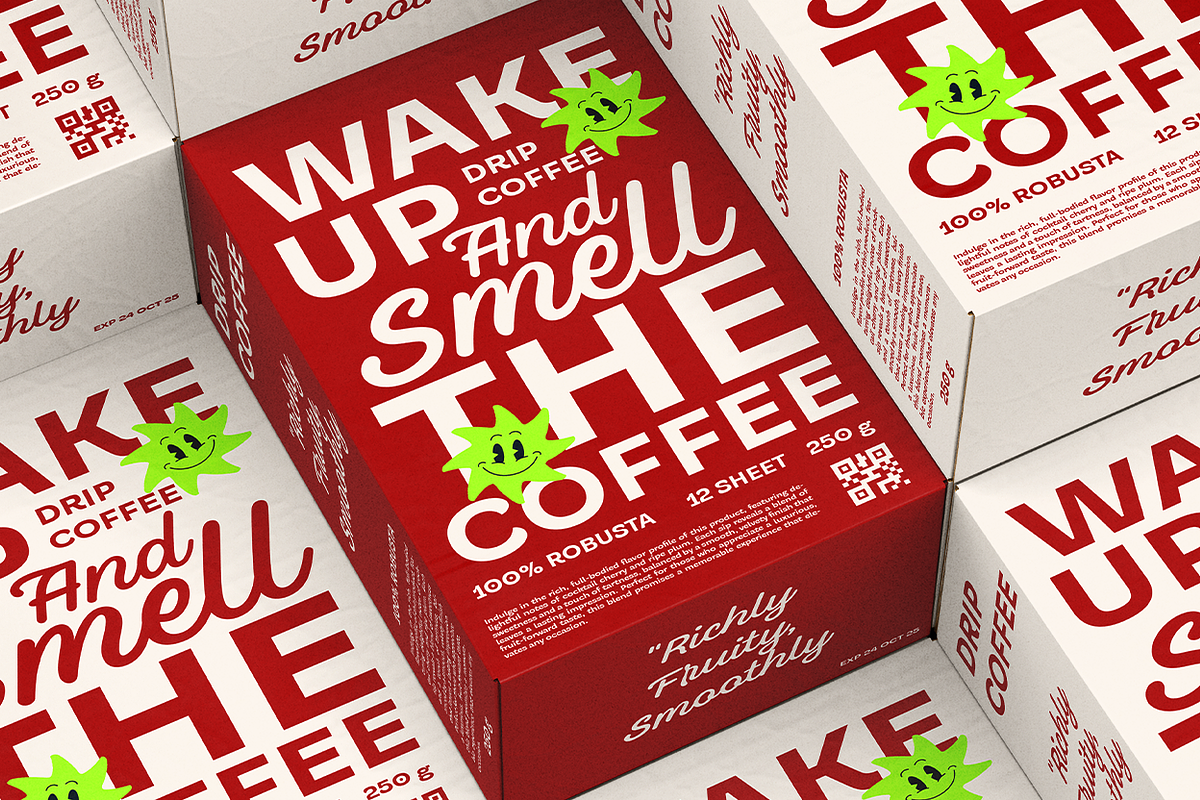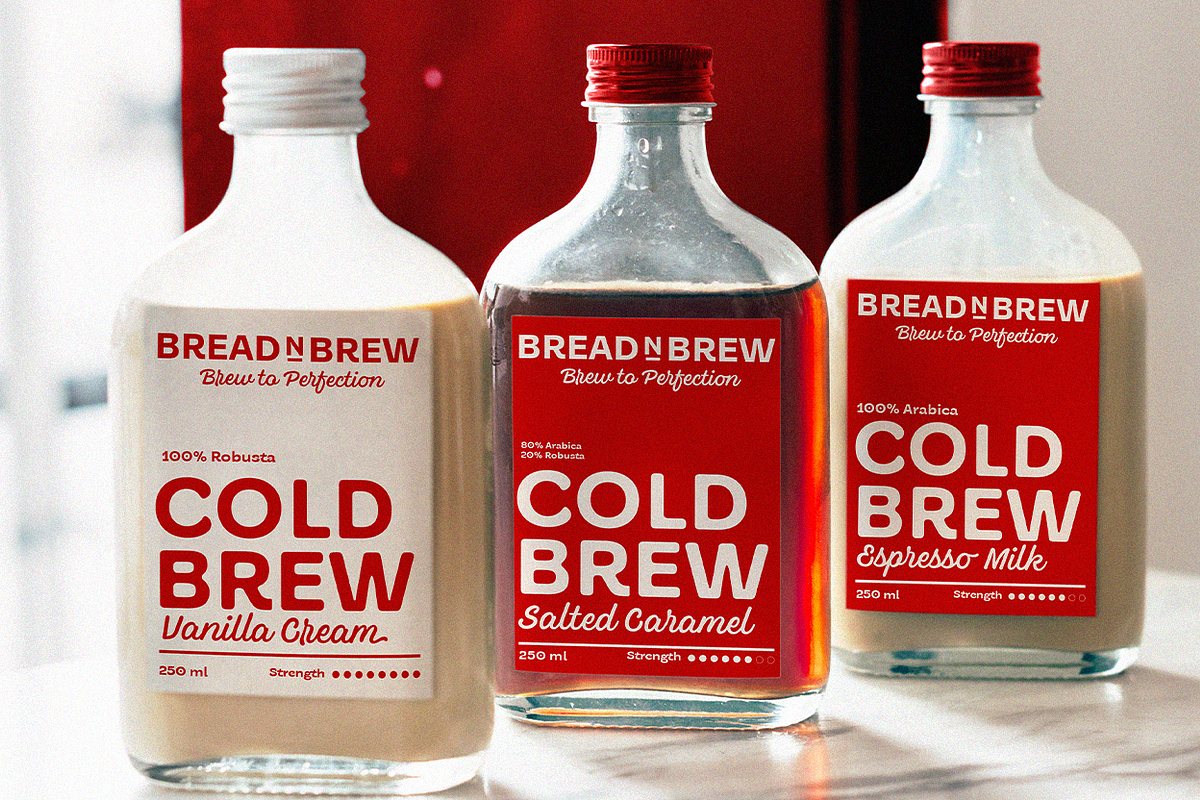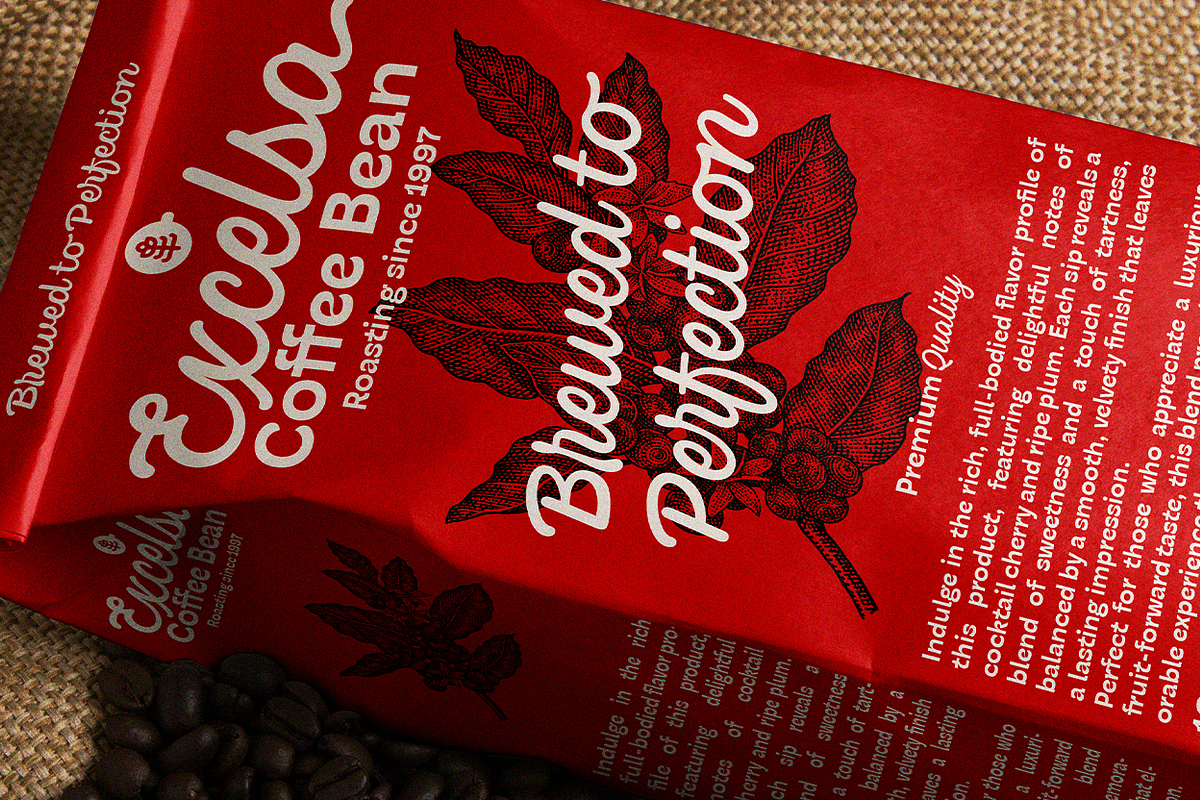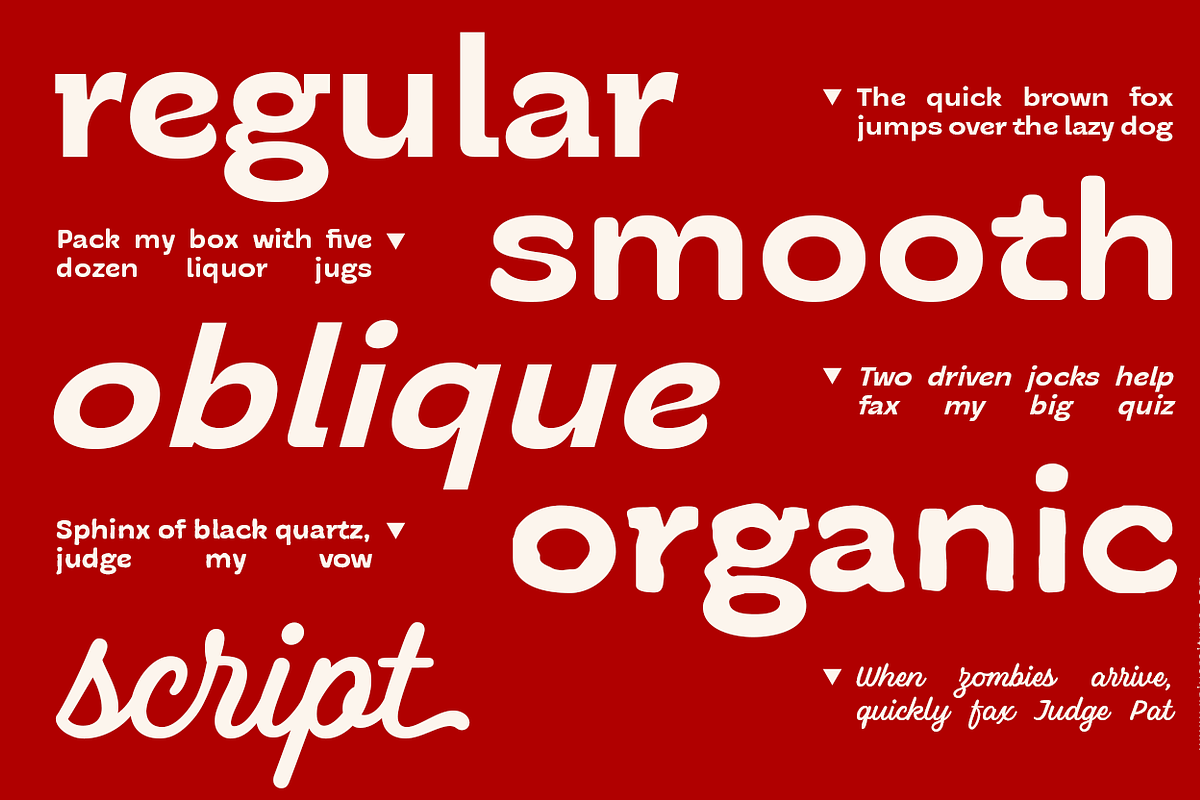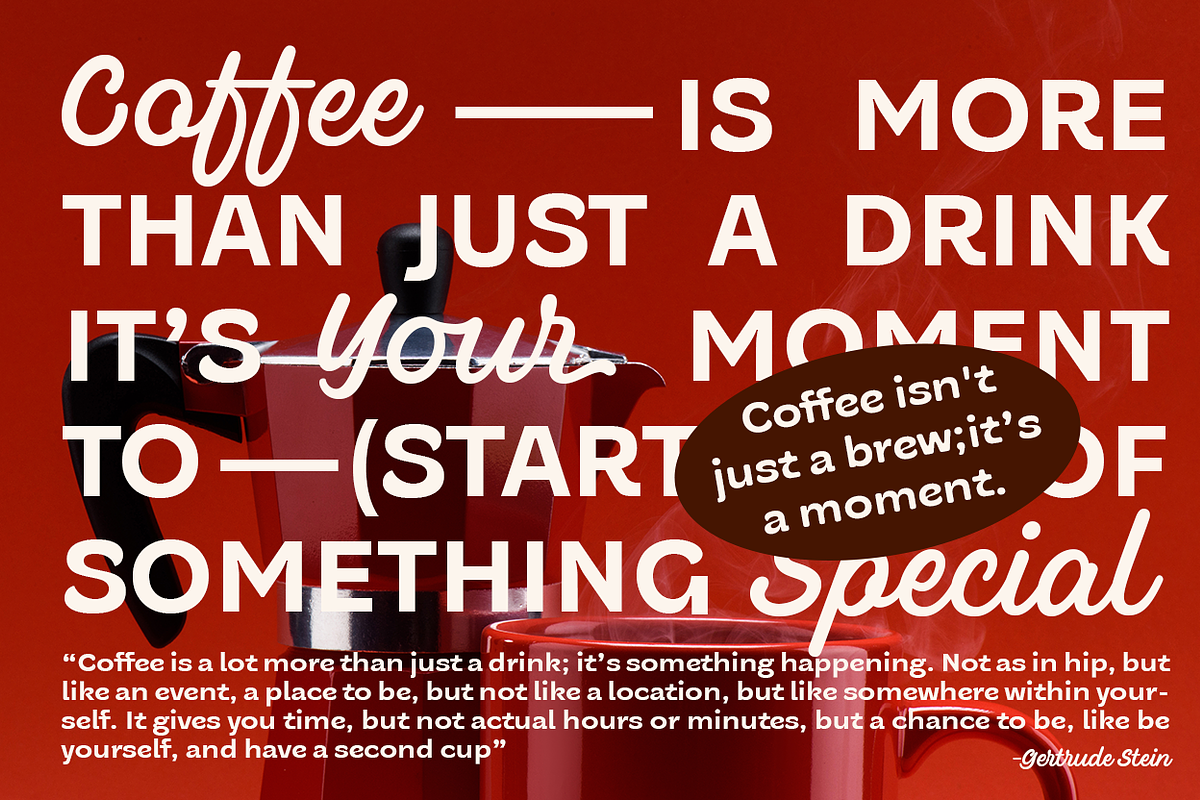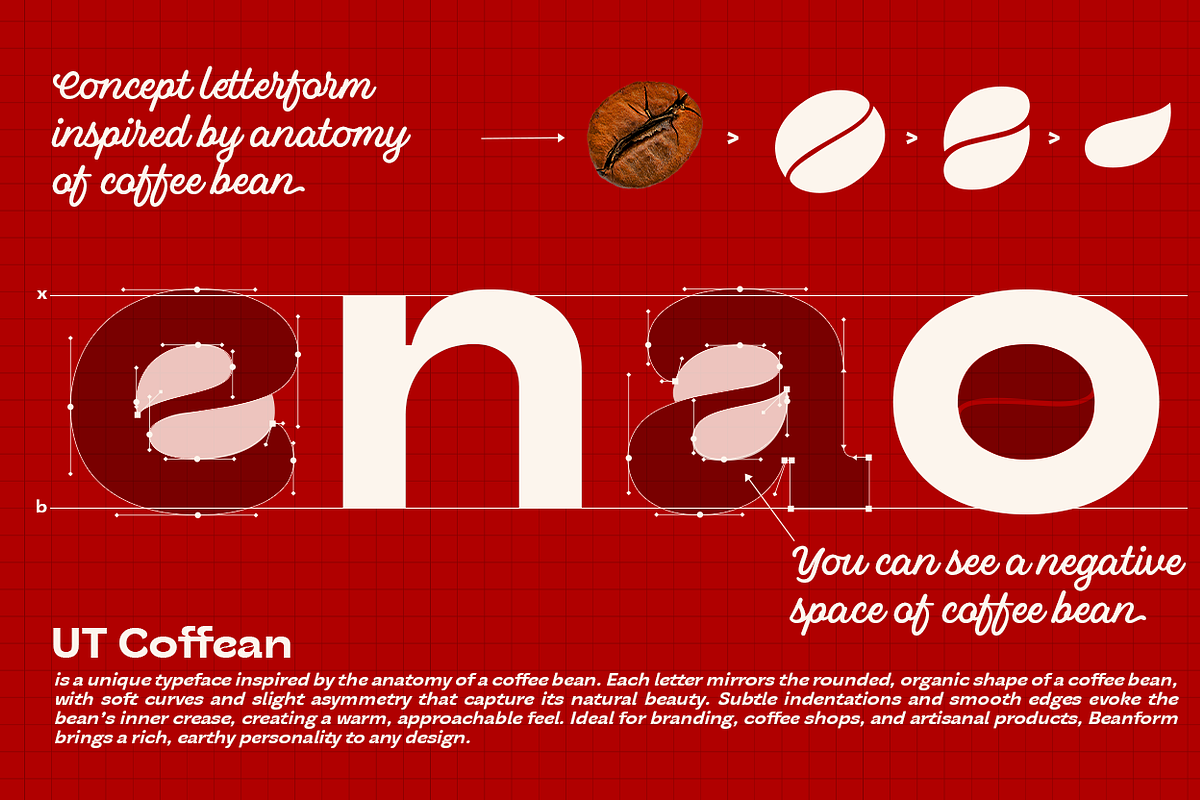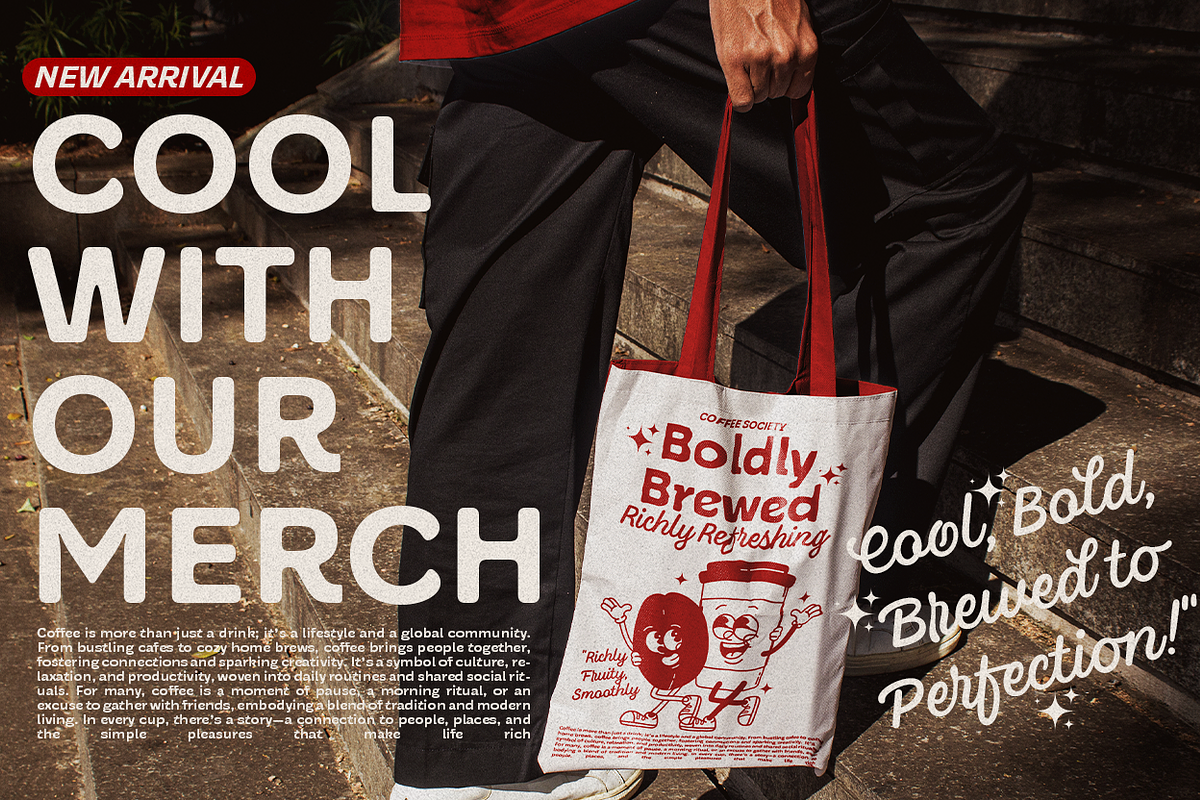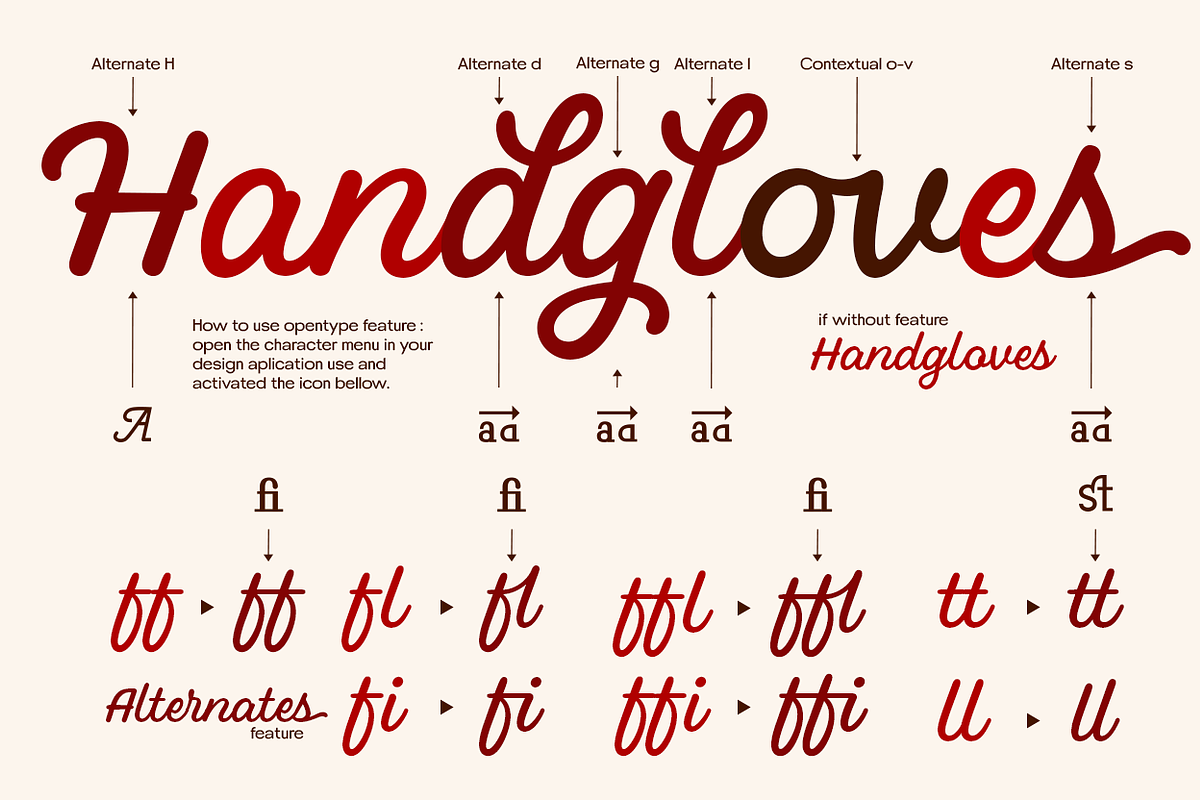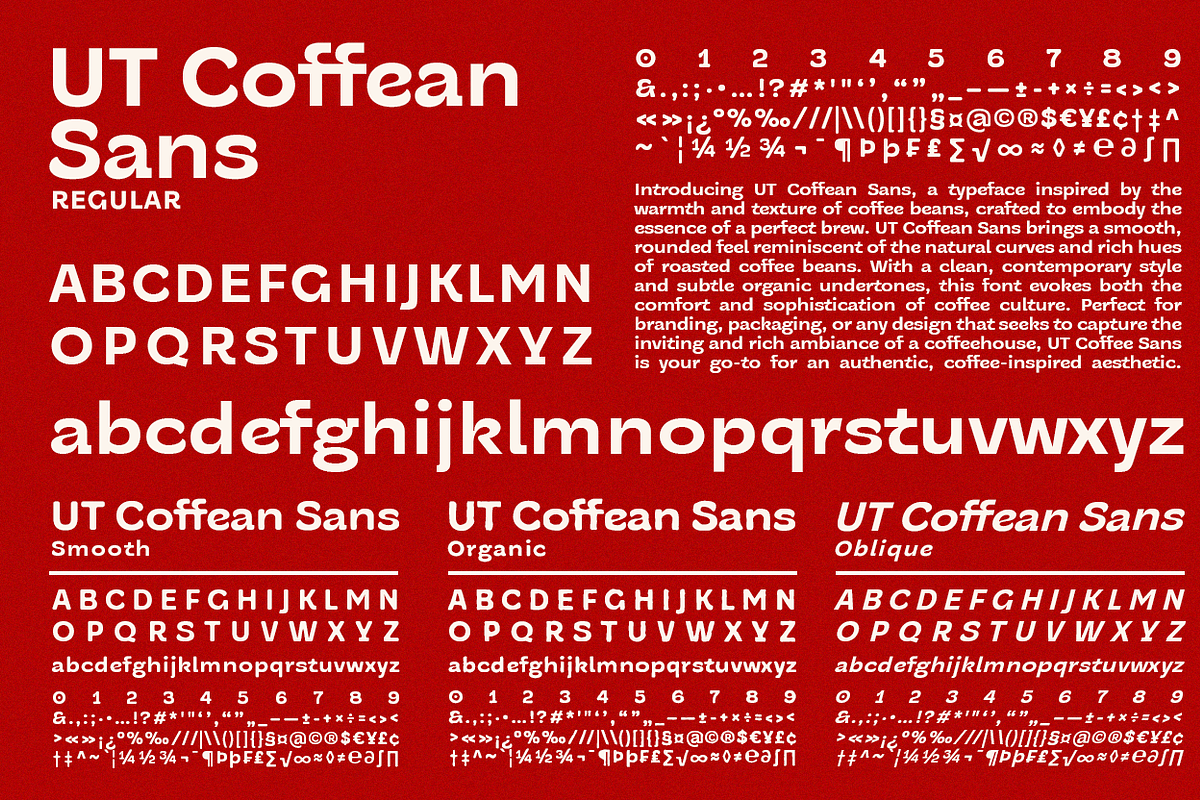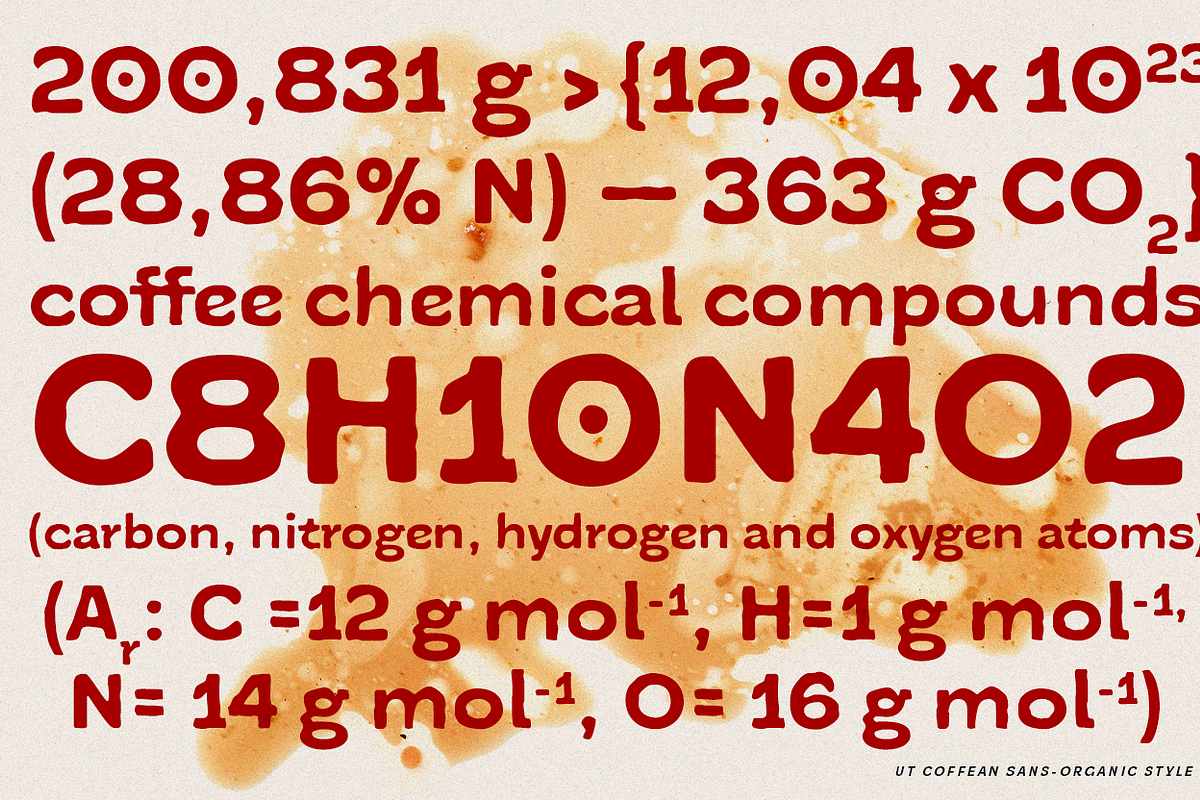
UT Coffean Font Duo
UT Coffean Font Duo – The Essential Coffee Font for Warm and Inviting Designs Have you ever wonder how typography meets the cozy charm of your favorite café? well, meet UT Coffean Font Duo. Crafted with inspiration from the organic curves of a coffee bean, this font collection offers a versatile blend of UT Coffean Sans and UT Coffean Script, making it a go-to for anyone seeking a lovely coffee font with warmth and authenticity. Perfect for branding, packaging, or digital content, this Kenyan coffee font alternatives evokes a cozy, handcrafted feel, ideal for creating an inviting atmosphere in any design project. With a range of styles, including UT Coffean Sans Regular, UT Coffean Sans Smooth, UT Coffean Sans Oblique, and UT Coffean Sans Organic, this font family caters to diverse design needs.
Target Audience: Designed for coffee brands, cafés, lifestyle businesses, and designers in need of a hot coffee font vibe, UT Coffean is perfect for brands looking for that unique blend of elegance and approachability. It’s also an excellent Starbucks coffee font alternative or chamberlain coffee font choice for anyone in search of a typeface that captures the essence of a morning coffee ritual.
Key Features: – Versatility in Styles: With five font styles in the UT Coffean Sans family and an elegant script option, this typeface offers flexibility and creative control for branding, headlines, and more.
– Organic Inspiration: The font’s curves, subtle indentations, and natural flow are inspired by the structure of a coffee bean, bringing a handcrafted quality that sets it apart.
– Multi-Language Support: Built with multi-language support, UT Coffean adapts to diverse audiences, making it a fantastic display typeface for global brands.
– Display Typeface with Personality: This decorative sans-serif font family balances readability with style, creating an inviting look for any headline, medium, or condensed layout.
Inspiration Behind the Design: The creation of UT Coffean Font Duo began with a close study of the coffee bean’s anatomy. The aim was to capture its essence — a shape that resonates with warmth, richness, and comfort. Each character in UT Coffean Sans mirrors the bean’s organic form, with rounded edges, smooth curves, and a central “crease” that symbolizes both structure and softness. This subtle asymmetry adds a human, approachable touch, reminiscent of the coffee bean’s natural charm.
In UT Coffean Script, the design takes on a more fluid, handwritten quality, resembling the swirling motion of steam over a freshly brewed cup. The script style has a light, graceful movement, offering an inviting and personal feel. With variations like Smooth and Oblique, the font achieves a balance between structure and flow, making it adaptable to various moods and applications.
Every detail in UT Coffean was meticulously refined to embody the earthy appeal of the coffee bean, resulting in a versatile typeface that’s ideal for coffee brands, cozy cafes, and any project that seeks a warm, authentic touch.